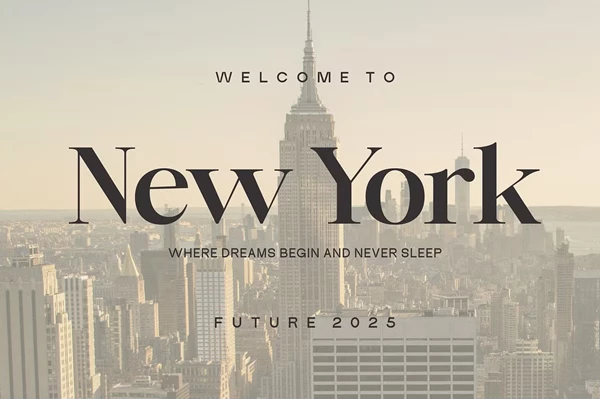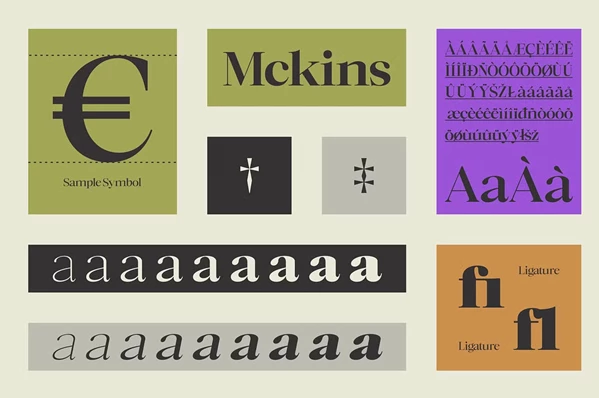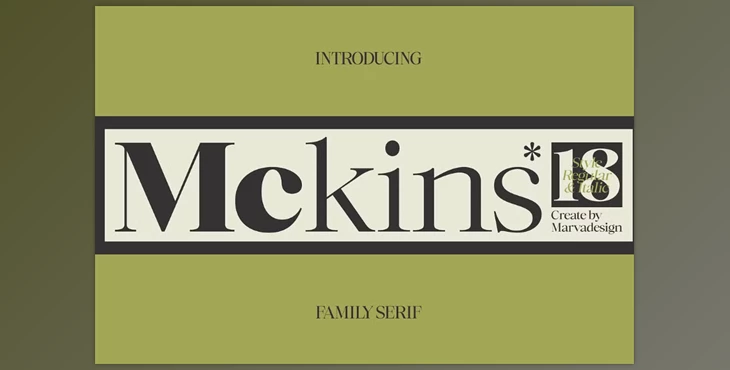
Mckins - Family Serif Font:
Mckins is a serif font that was created by Marvadesign. Like other serif typefaces, Mckins offers other family members with both high-contrast strokes and graceful shapes but balances classical and modern. It’s versatile thanks to 18 styles, both upright and italic, from Thin to Black.
Mckins is elegant enough for branding projects while also satisfying the bold requirements of editorial layouts. Its sharp terminals, intense vertical stress, and fluid curves make the font perfect for luxurious visual identities. Designers looking for a stylish, functional typeface will admire McCain’s superb display quality and readability in body text.
- 18 Styles: Thin, ExtraLight, Light, Regular, Medium, SemiBold, Bold, Extra Bold, Black, and their italic counterparts.
- Character Support: Uppercase and lowercase letters, multilingual letters, ligatures, and alternate characters are included.